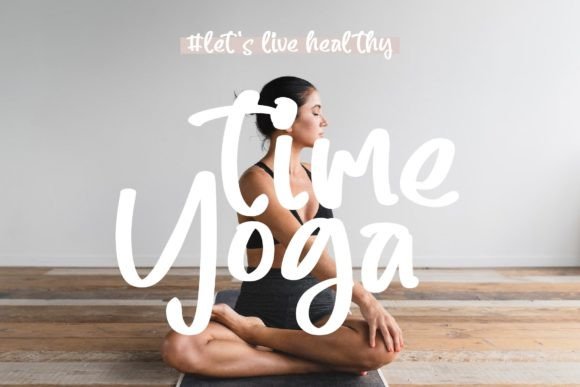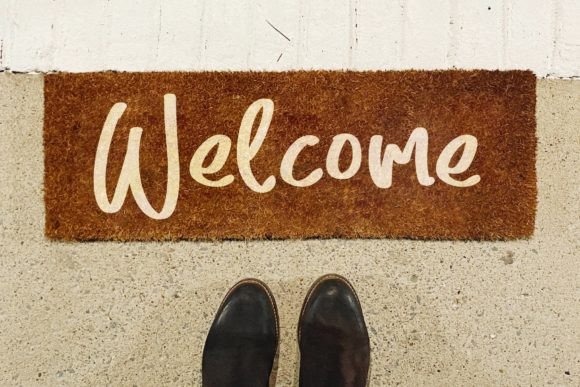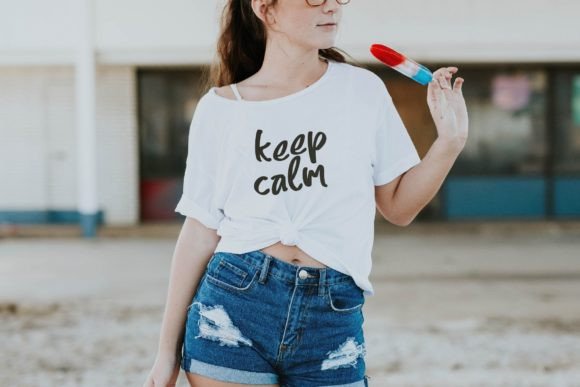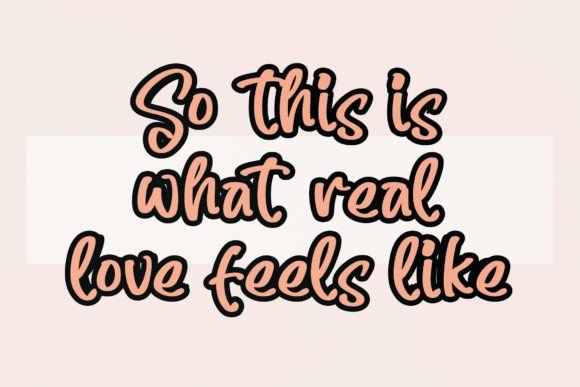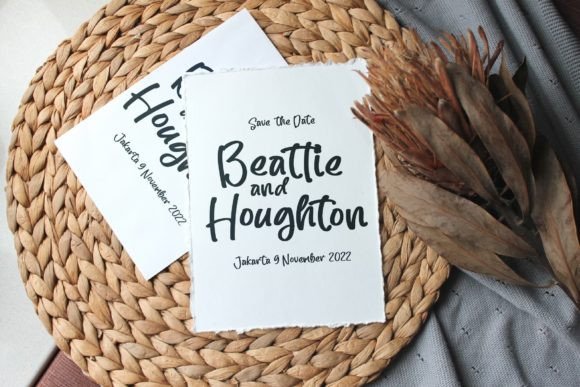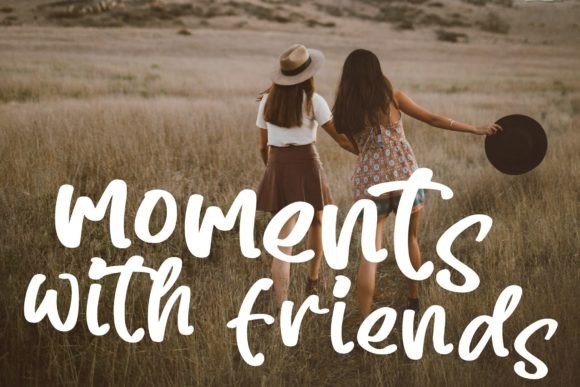
Introduction to Santoey Font
As designers, we’ve all been there – staring at a blank canvas, trying to bring our creative vision to life. But what if you had the perfect tool to help you create stunning designs that truly stand out? Enter the Santoey Font, a playful and stylish font that’s about to become your new best friend.
With its youthful spirit and high-quality design, Santoey Font is the perfect addition to any creative project. Whether you’re working on a professional branding design or a casual flyer, this font is sure to elevate your work. And the best part? It’s PUA encoded, making it easy to access all of its amazing glyphs and ligatures.
Key Features of Santoey Font
- Supports a wide range of languages and characters
- Unique characteristics: Modern, elegant, and sophisticated design aesthetic
Honest Review: Santoey Font
What I love about the Santoey Font is its high quality and versatility. It’s perfect for creative projects that require a modern and sleek aesthetic. The font’s clean lines and minimalist design make it easy to use and pair with other fonts.
However, I did encounter a few limitations with the Santoey Font:
- ⚠️ Limited character set, which may not be suitable for longer text-based projects
Overall, I’m quite impressed with the Santoey Font. It’s a great addition to any designer’s toolkit, and I’m looking forward to using it in future projects. With a little bit of creativity, the Santoey Font can help take your designs to the next level.